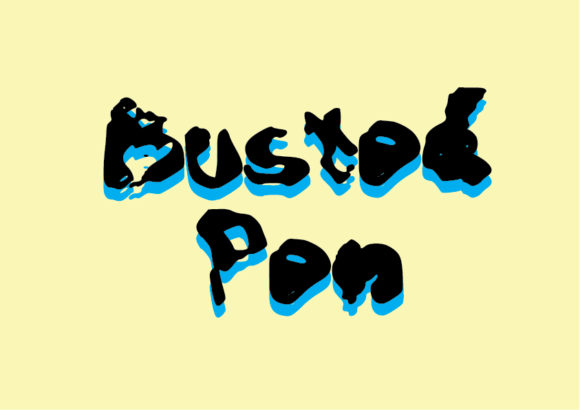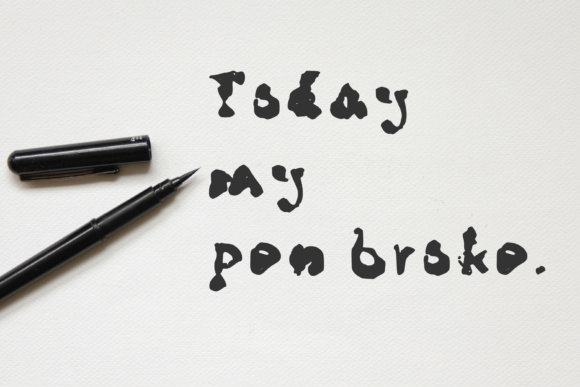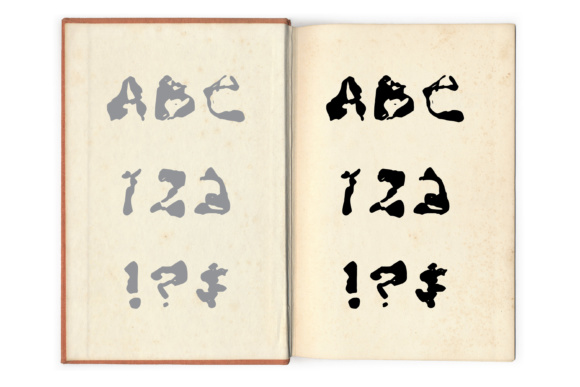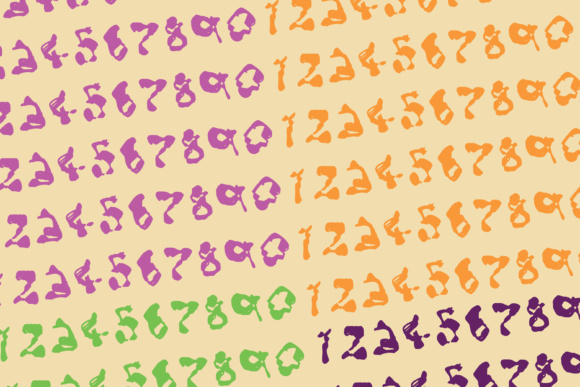
Busted Pen Font
About Busted Pen Font
Ever owned a cheap fountain pen, ever seen what happens when it breaks or gets too hot? Take a look at this typeface and you will see what inky mess it can make!
Includes upper and lower a-z, numbers and some symbols and punctuation.